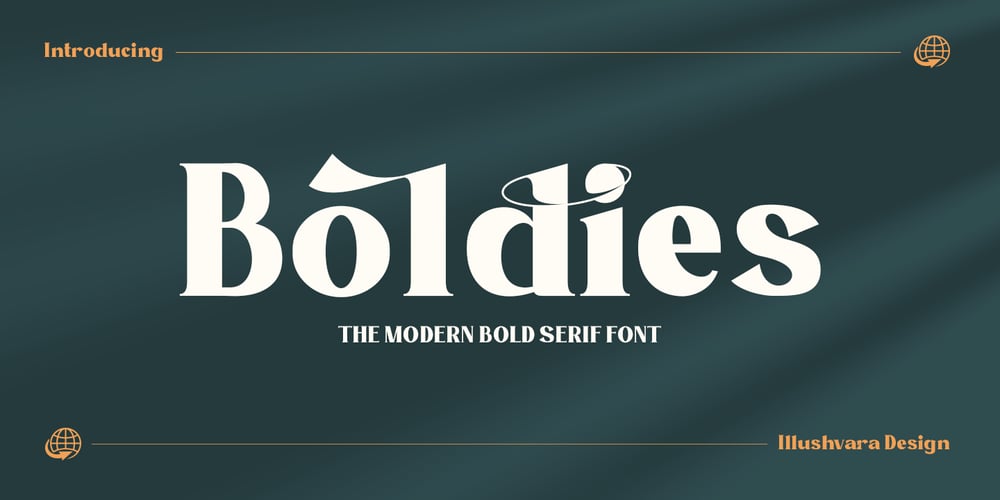
Boldies Font Family was designed by Bayu Suwirya and published by Illushvara. Boldies contains 1 styles and family package options. Boldies is a serif font, mixed the modern with the classic concept line serif. The Alternate shape will make your design look like Modern. But don’t worry if you need the Design like Classic and Bold Serif, you just put the normal Uppercase and Lowercase. With many ligatures will make your design projects stand out! Add this font to your most creative ideas for Application, Art Gallery Poster or postcard, Architectural Logo Project, Classic Magazine, Product Skincare or Logotype you want to used! Support the Multilingual Language!If you have any question, don’t hesitate to contact me. Happy Designing !!!Thank You, Illushvara Design